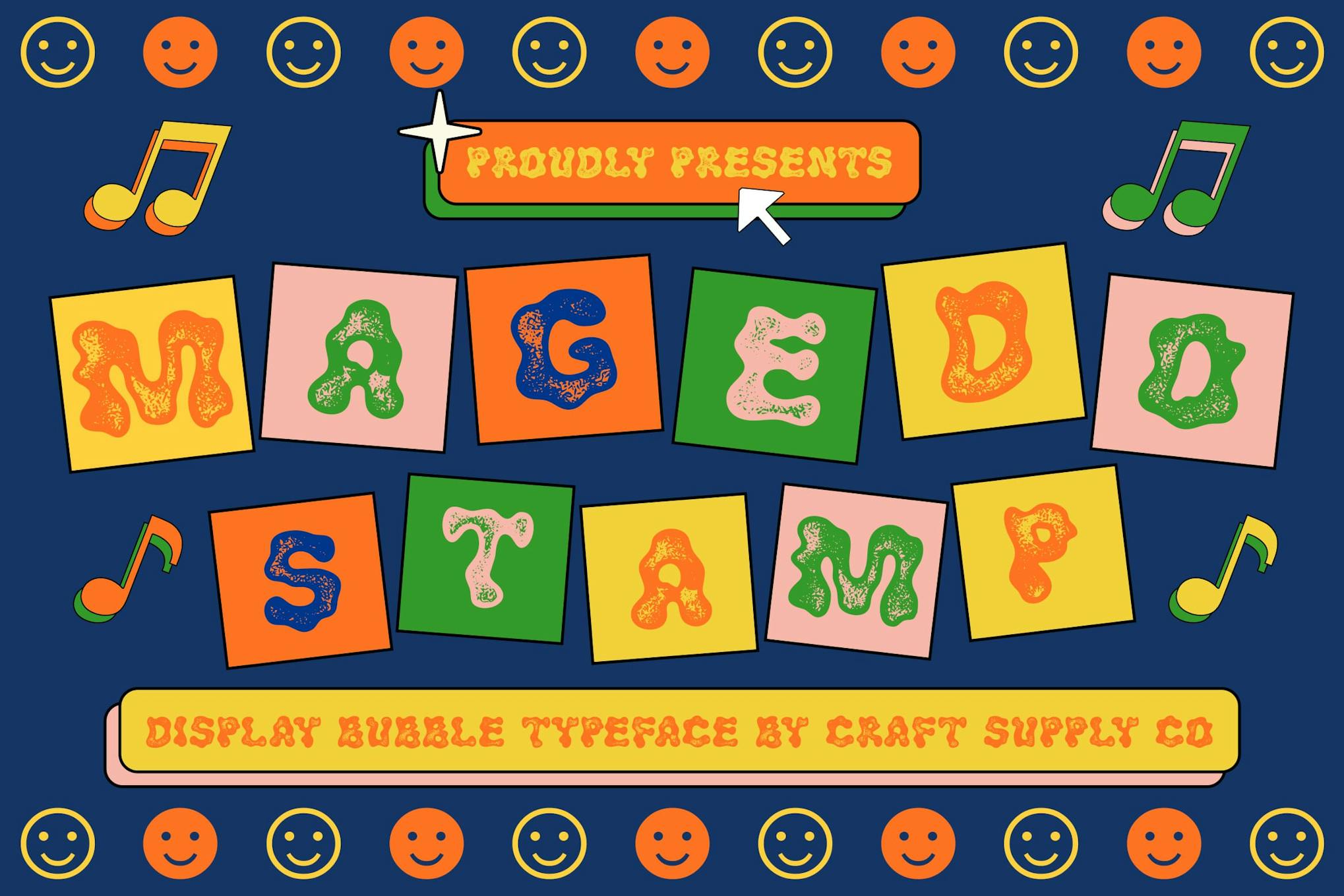
Magedo Stamp Font
Magedo Stamp Font is perfect for vintage badge design, industrial branding projects, rubber stamp effects, distressed logo creation, weathered signage systems, retro packaging design, authentic vintage posters, craft brewery labeling, and nostalgic typography applications.
What makes Magedo Stamp Font exciting is its authentic vintage character that perfectly captures the worn, weathered appearance of genuine rubber stamps and industrial printing methods. This compelling typeface features realistic ink bleeds, irregular edges, and natural distressing effects that add instant authenticity and historical credibility to modern designs. The font's rugged charm and handcrafted imperfections create emotional connection and tactile quality that digital typography often lacks, making it ideal for brands seeking to communicate heritage, craftsmanship, and genuine authenticity.
Magedo Stamp Font family includes multiple distressed variations: Clean, Light Stamp, Medium Stamp, Heavy Stamp, Grunge, and Outline versions. Each style maintains the distinctive stamp aesthetic while offering different levels of weathering intensity and visual effects, providing designers with versatile tools for creating authentic vintage typography systems and period-appropriate design applications.
Design professionals value Magedo Stamp Font for its ability to convey authenticity and craftsmanship through typography alone. The varied distressing patterns and organic imperfections create natural rhythm and prevent digital uniformity that might compromise vintage credibility. Its robust construction ensures excellent readability despite heavy weathering effects.
Whether used for heritage brand development or contemporary vintage-inspired campaigns, Magedo Stamp Font consistently delivers authentic stamp typography that resonates with audiences seeking genuine craftsmanship, historical character, and the timeless appeal of traditional printing methods.